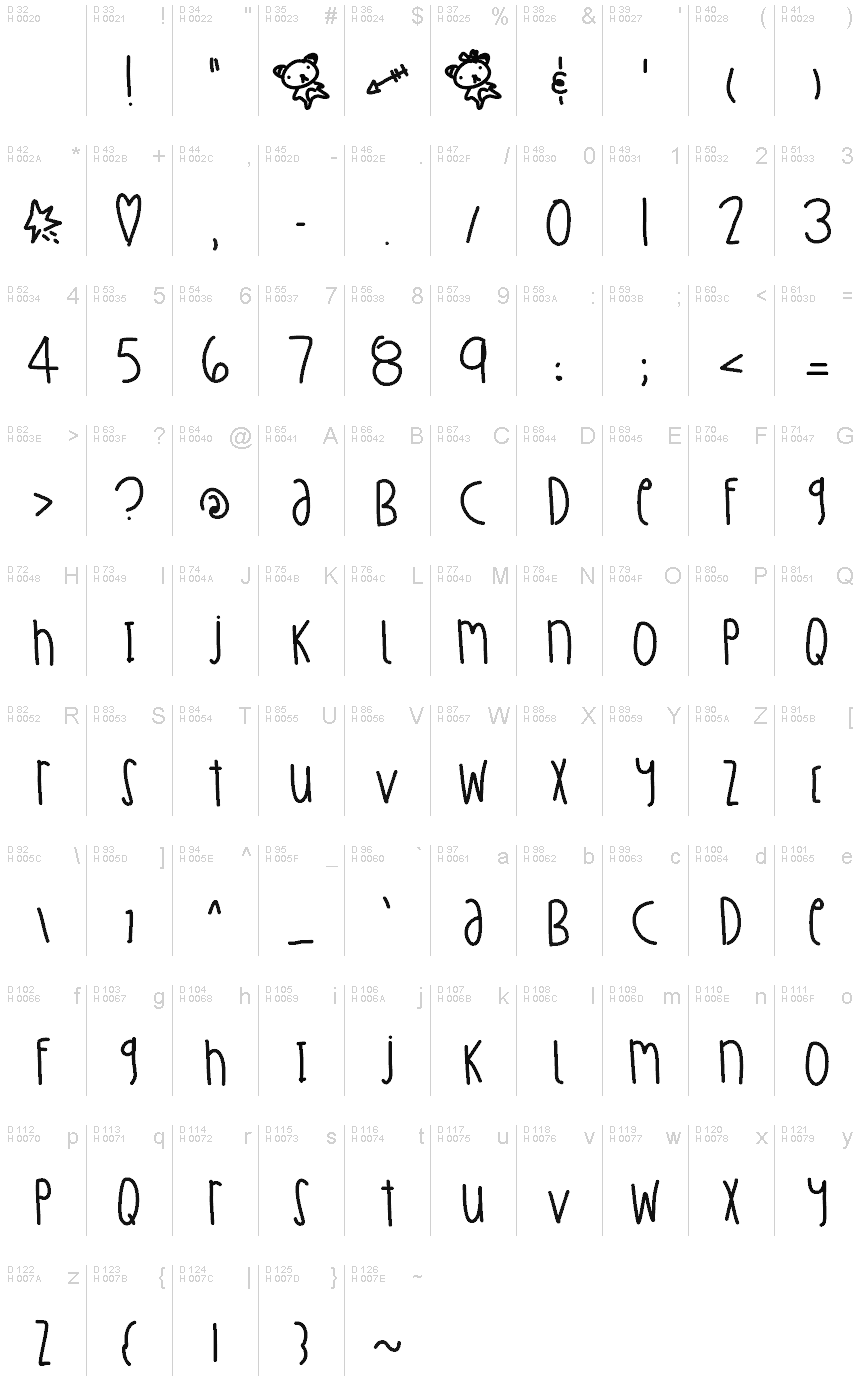
Pastaccio
Pastaccio is a captivating handwritten font that exudes a whimsical and organic charm. Designed by Des Gomez, this condensed typeface boasts a playful, almost calligraphic aesthetic that lends itself beautifully to a wide range of design applications.
The gently flowing strokes and unique character shapes create a sense of fluidity and movement, making Pastaccio an ideal choice for branding, packaging, and editorial design. Its versatility extends to digital interfaces, where it can infuse a touch of personalized warmth and character.
Pastaccio's distinctive style ensures it stands out, making it a compelling option for projects that aim to convey a sense of handcrafted authenticity.
The gently flowing strokes and unique character shapes create a sense of fluidity and movement, making Pastaccio an ideal choice for branding, packaging, and editorial design. Its versatility extends to digital interfaces, where it can infuse a touch of personalized warmth and character.
Pastaccio's distinctive style ensures it stands out, making it a compelling option for projects that aim to convey a sense of handcrafted authenticity.